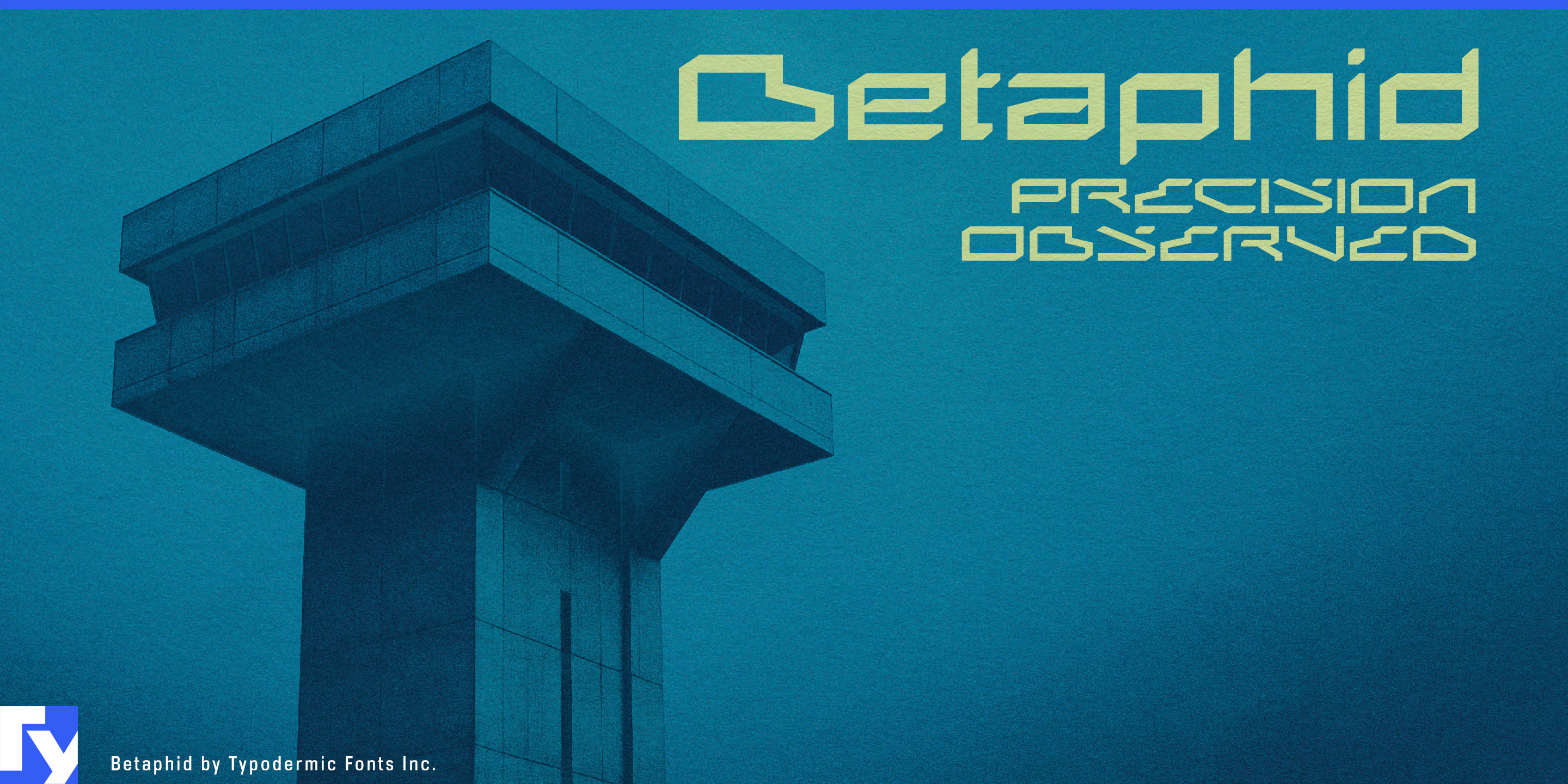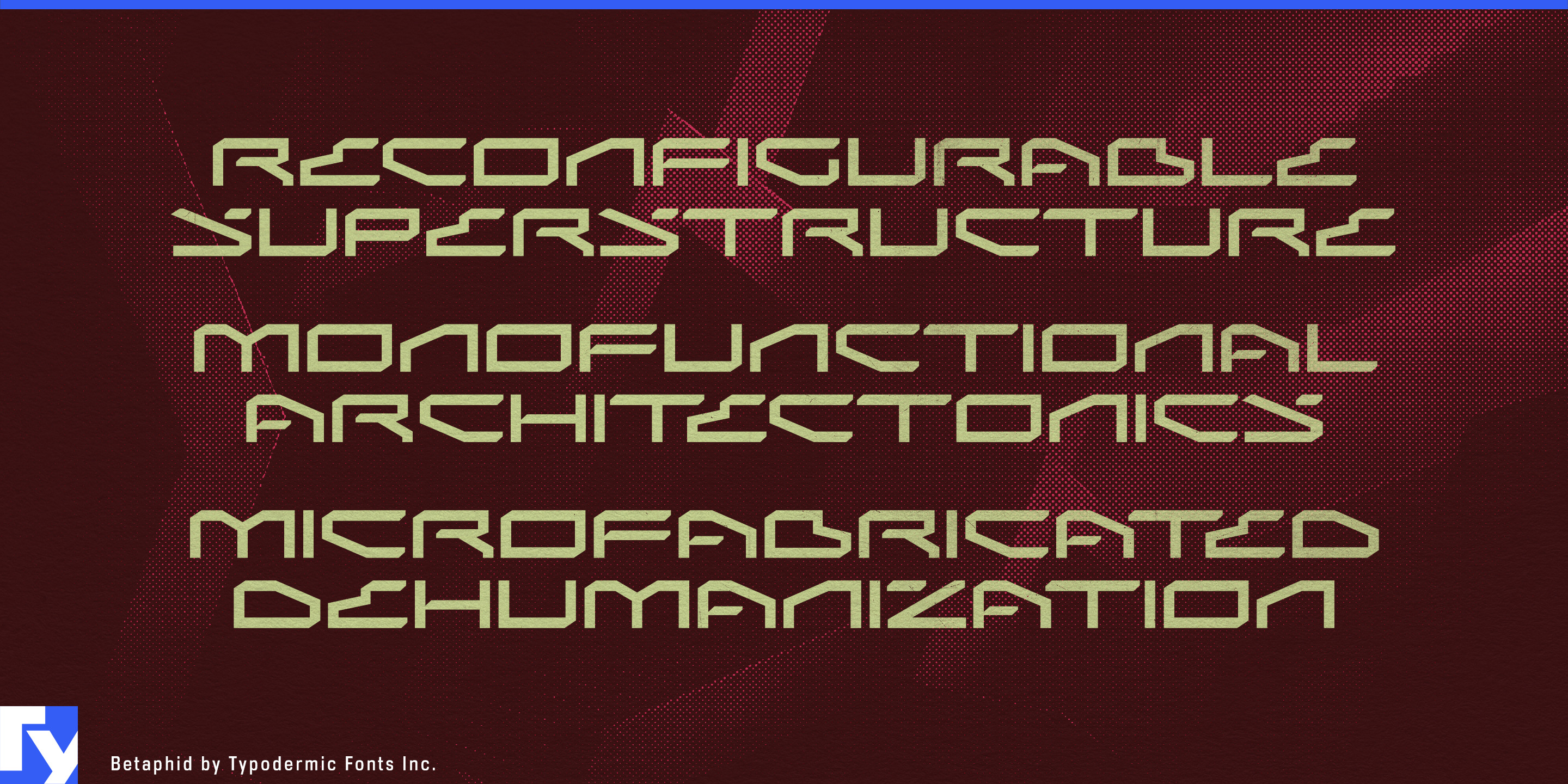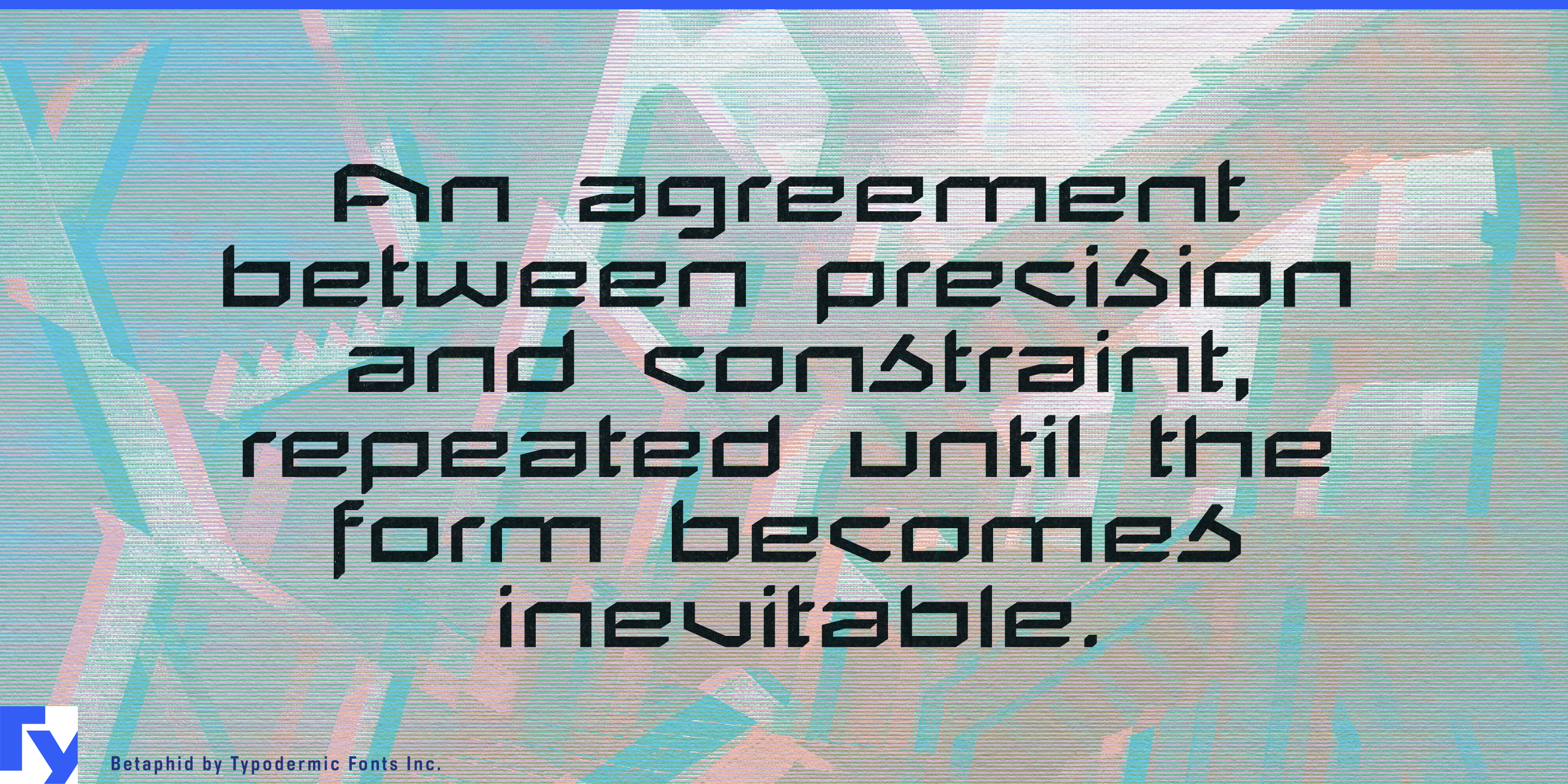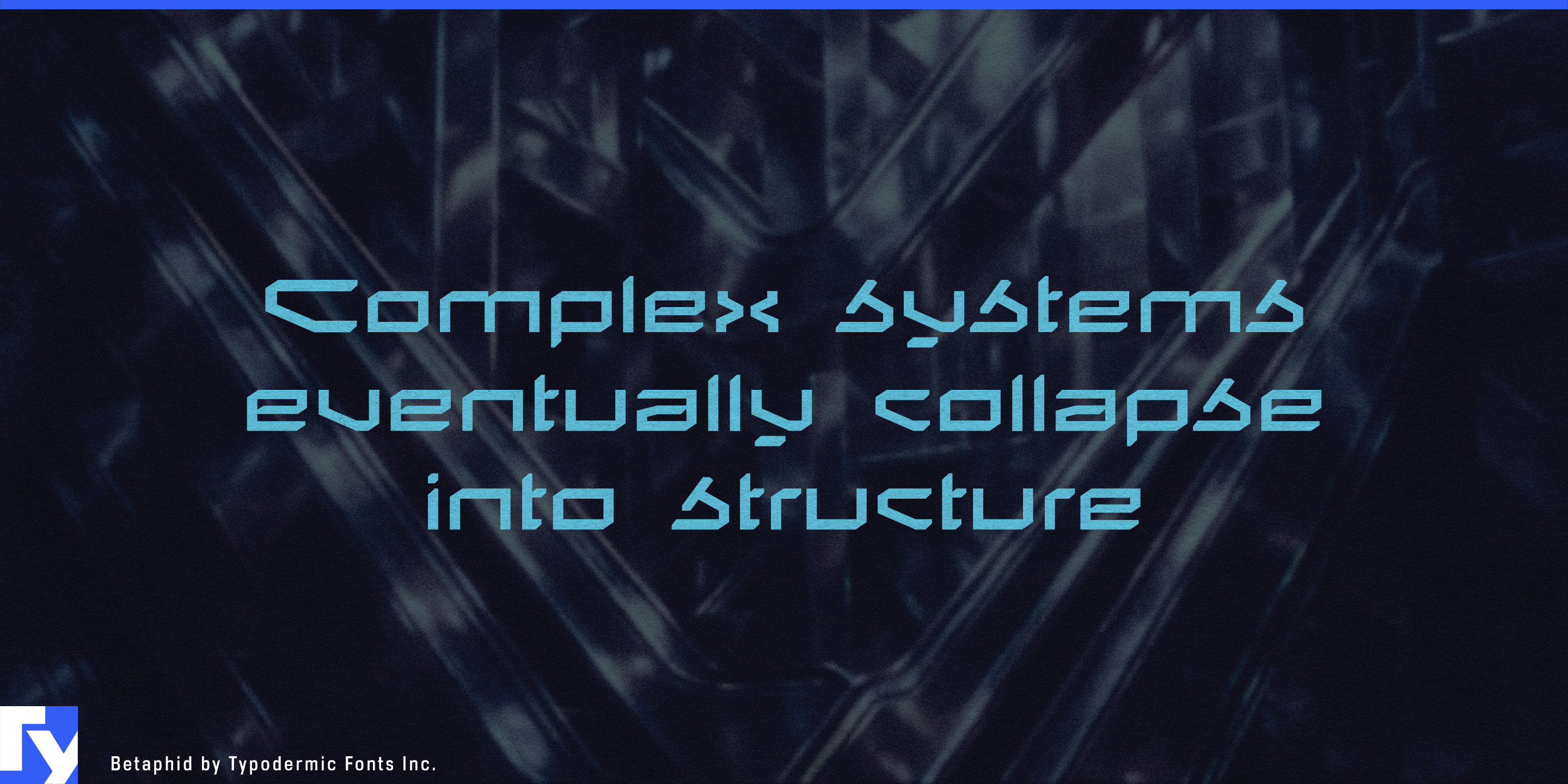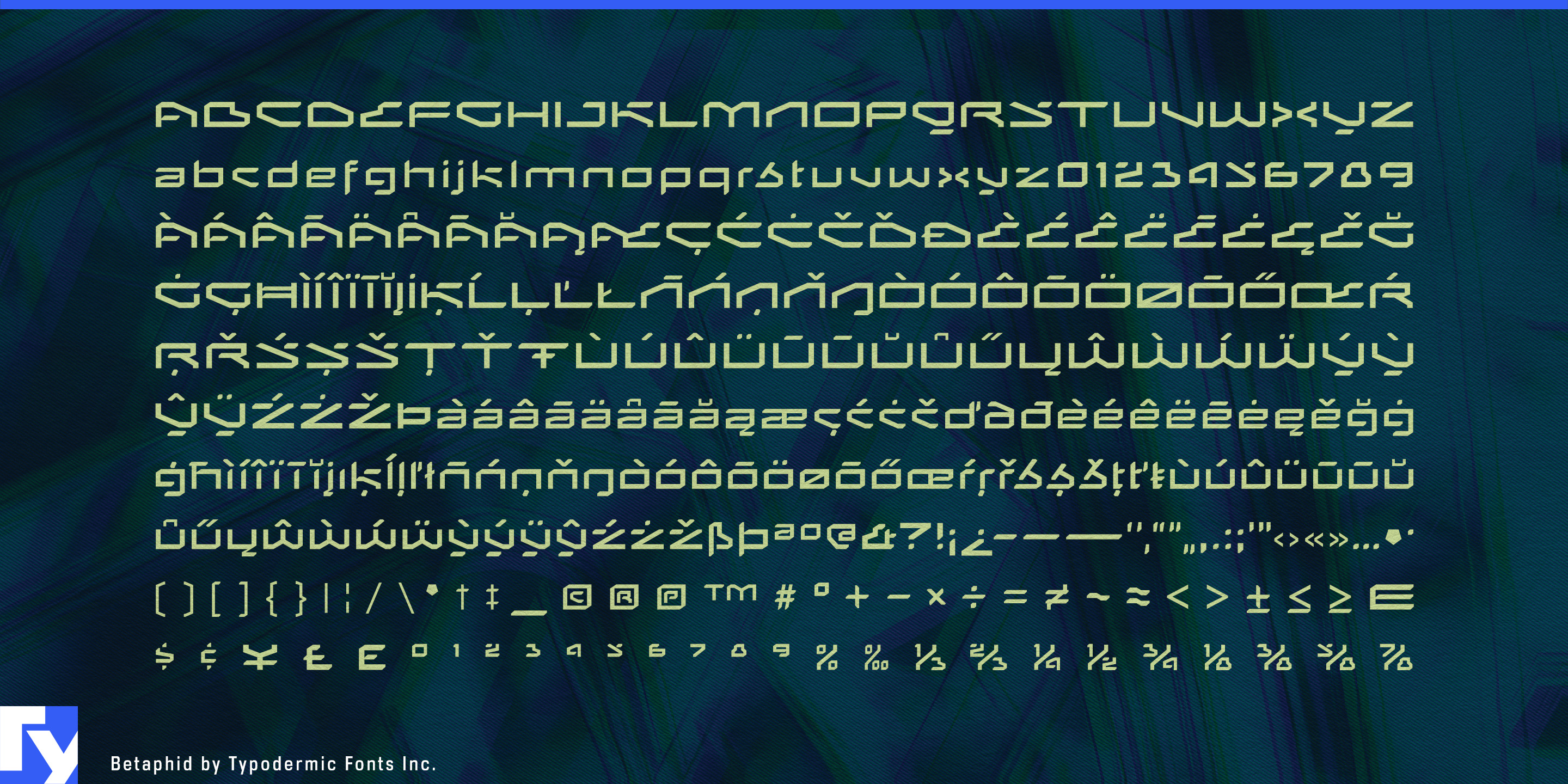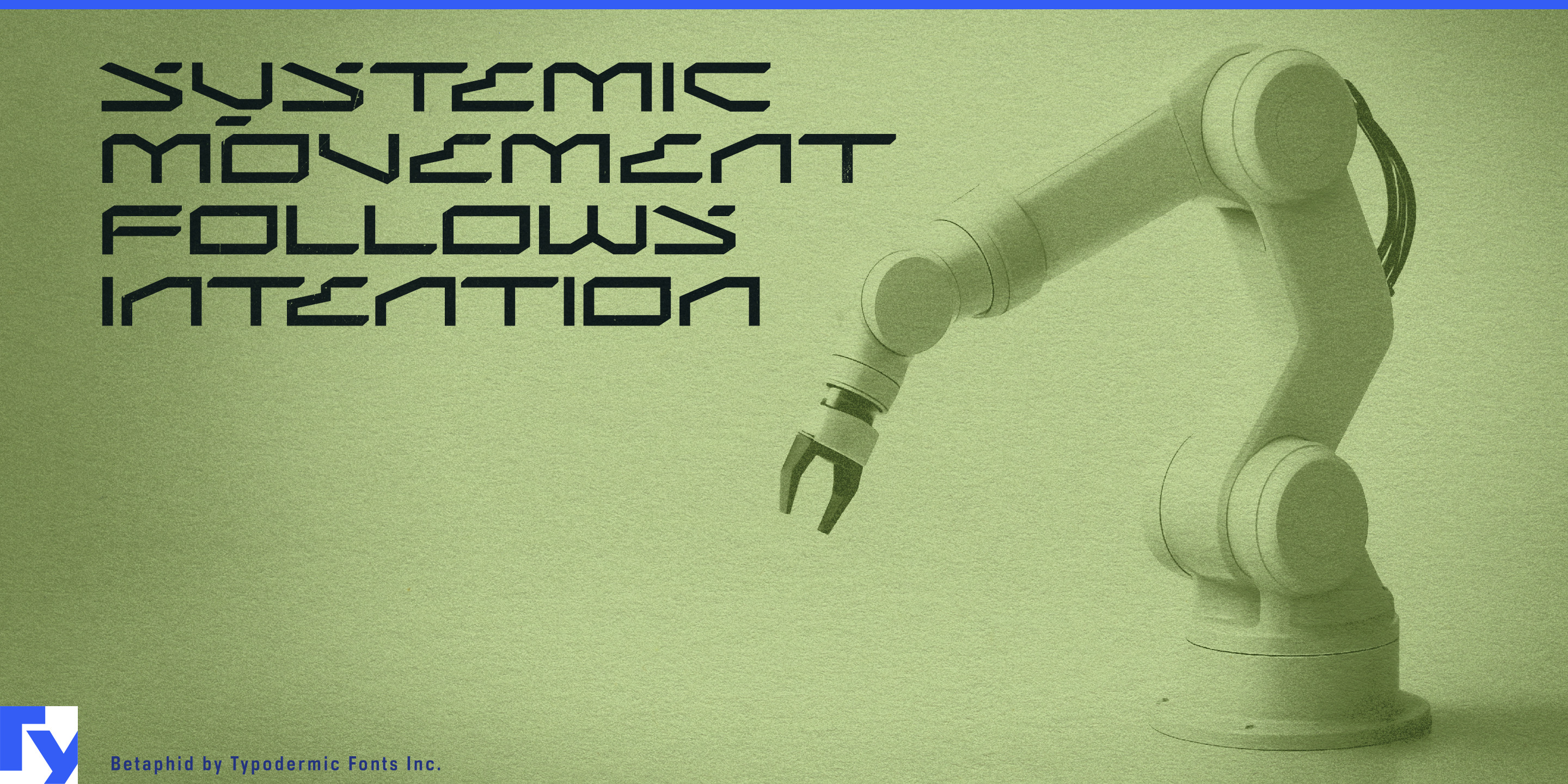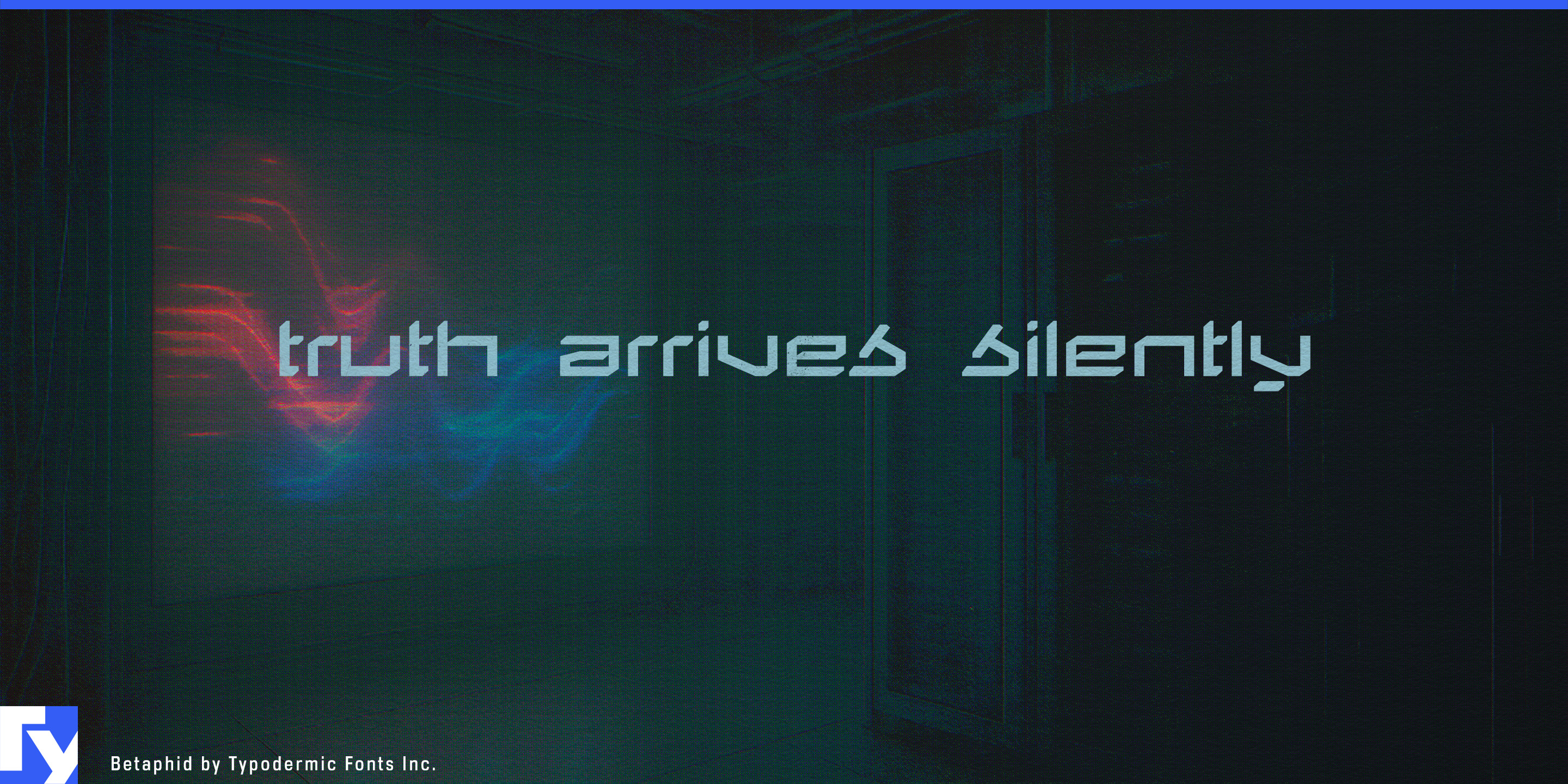
Betaphid
Betaphid isn’t here to make things easy for your audience—and that’s exactly the point. This hypermodern display typeface thrives on tension, drawing from the sharp geometries of brutalist architecture and the precision of engineered systems. Every letter is a calculated disruption; the rhythm is unfamiliar, the reading experience slowed, forcing viewers to *look* rather than skim.
Inspired by the experimental typography that once lived only on gallery walls and speculative concept art, Betaphid trades instant legibility for a sense of exclusivity. Its angular forms, unexpected curves, and stubbornly unconventional ‘s’ make it feel like an artifact from a future where communication is as much about form as it is about content. Betaphid works where clarity isn’t the point—when the message is meant to be decoded, not consumed. Think avant-garde fashion campaigns, architectural manifestos, cryptic film titles, or tech brands that want to feel like they’ve arrived from fifty years ahead.
Use Betaphid when you want typography to be a gatekeeper, not a doorman. It’s a filter, a statement, and an invitation to engage with design on a more deliberate frequency.